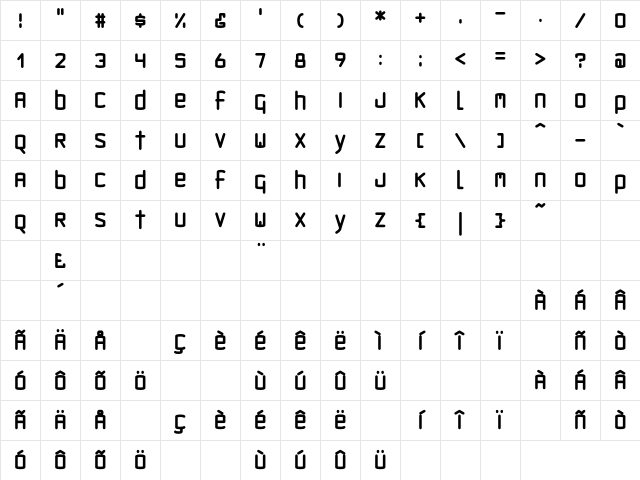
Sputnikk Regular Free Font
Sputnikk Regular
Design Context for Sputnikk
Sputnikk is a composed and adaptable typeface that performs quietly and consistently across a wide range of design contexts.